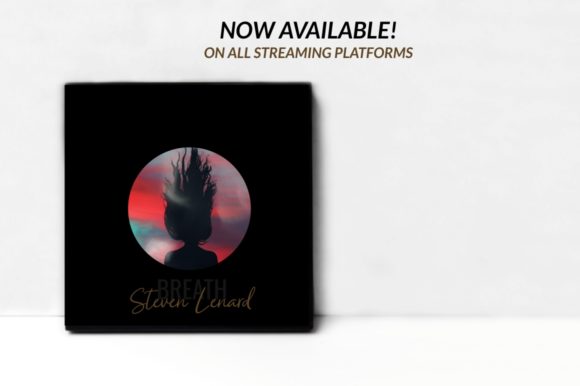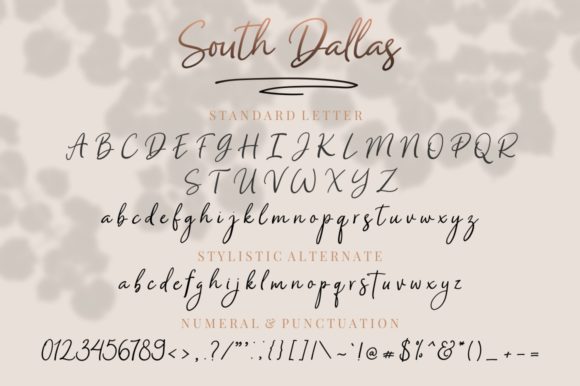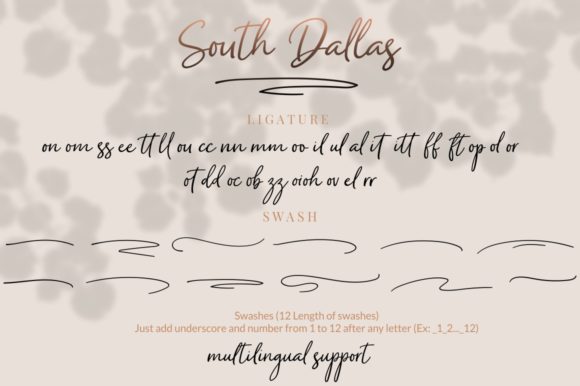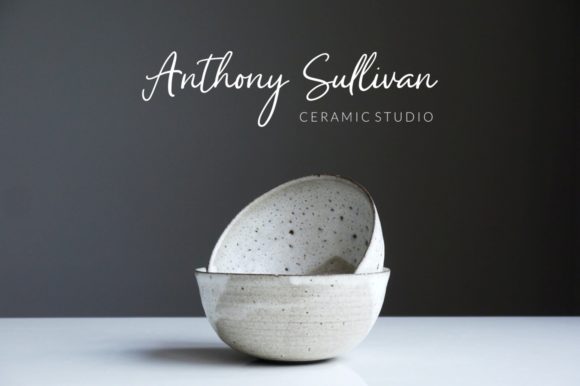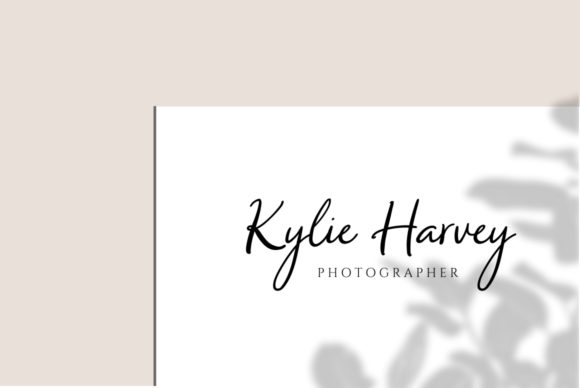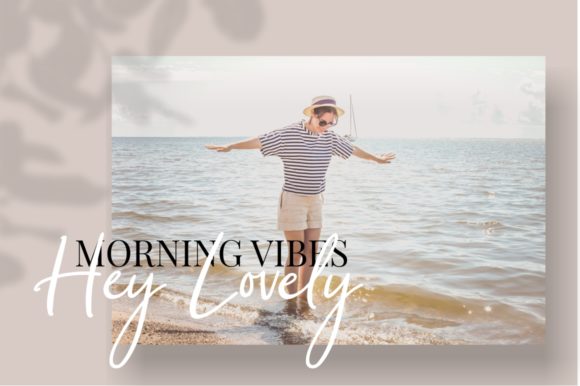
South Dallas Font
About South Dallas Font
South Dallas is a stylish handwritten font with an elegant set of charming characters and swashes. This font is PUA encoded which means you can access the available glyphs and swashes with ease!